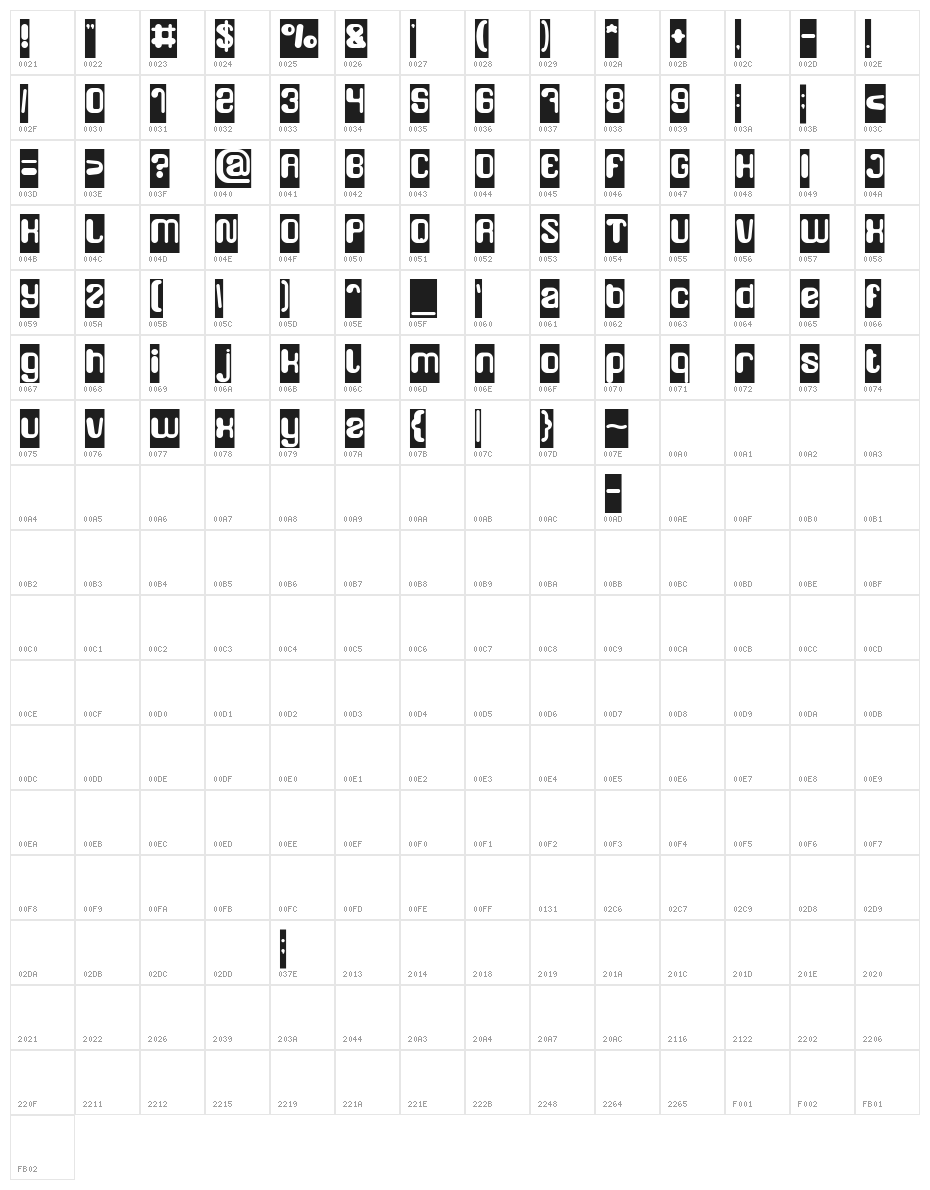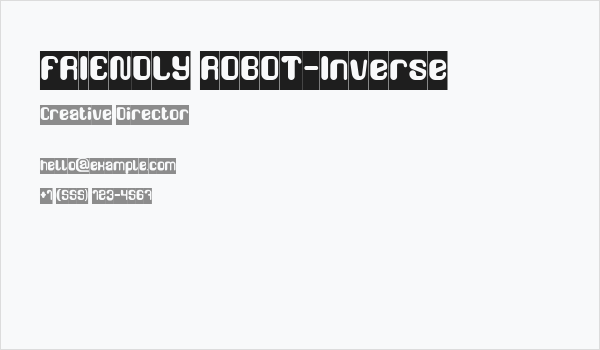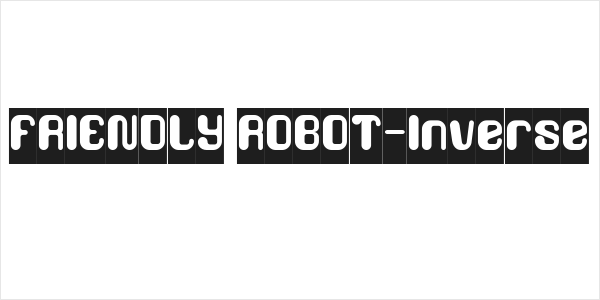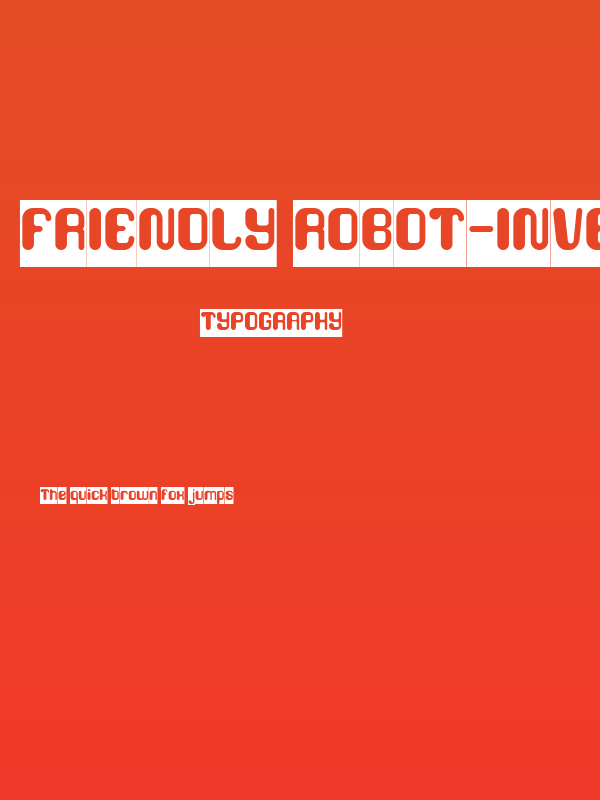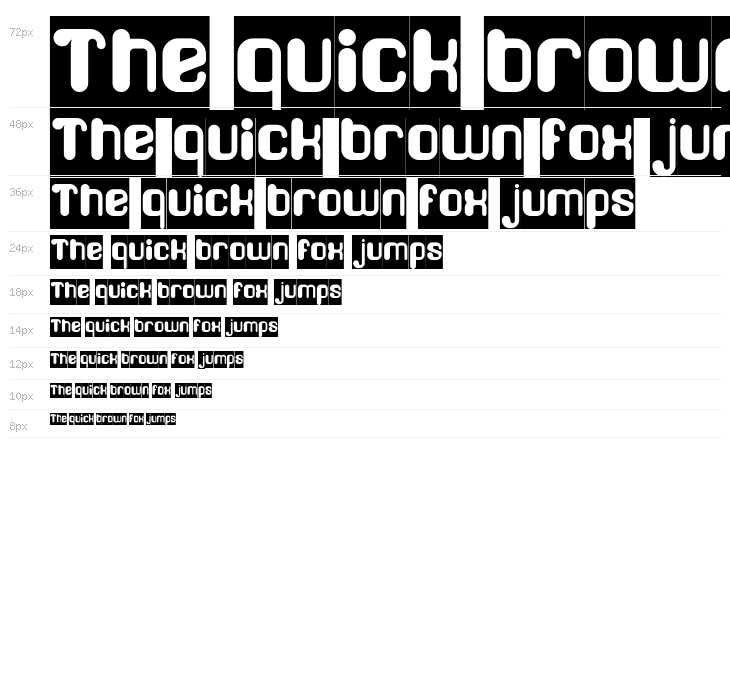
FRIENDLY ROBOT-Inverse Font
FRIENDLY ROBOT-Inverse Description
This font features a playful and futuristic design with rounded edges and a bold presence. The characters are uniformly wide, creating a sense of consistency and balance. The uppercase and lowercase letters maintain a similar style, with the lowercase being slightly more compact. Numbers and special characters are designed to match the overall aesthetic, ensuring a cohesive look across all text. The font's unique style makes it stand out, with a friendly and approachable feel that is ideal for creative projects. Its boldness and distinct character shapes make it suitable for eye-catching designs.
| Proposed Projects | Ideal for tech-related branding, children's books, playful advertisements, and modern posters. |